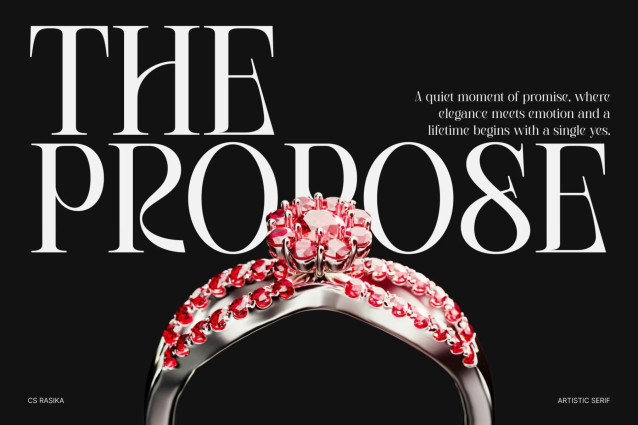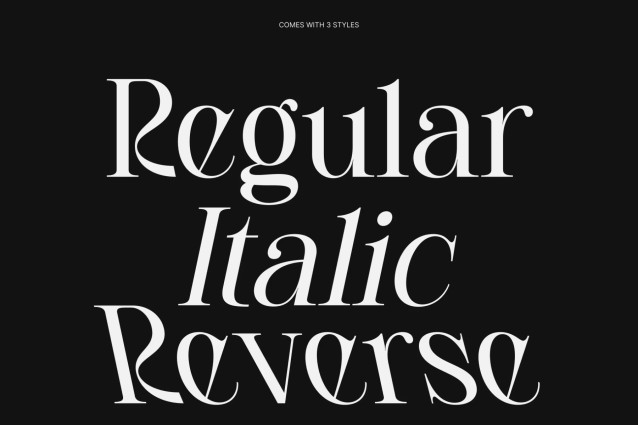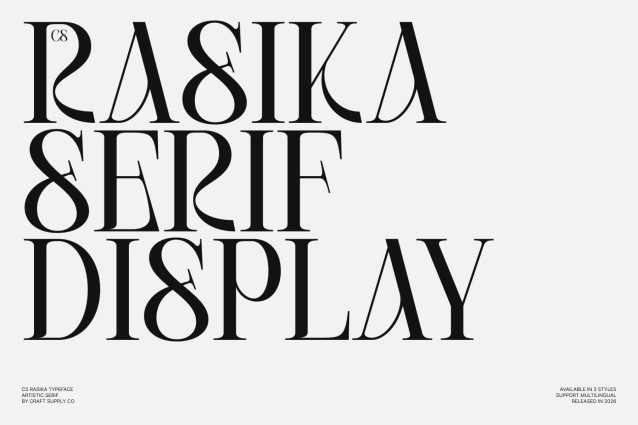
CS Rasika – Elegant Serif Font
CS Rasika – Elegant Serif with Timeless High-Contrast Beauty
Elegant Serif with Refined Curves
This is an elegant serif font designed to express sophistication through graceful curves and polished proportions. Every letterform feels carefully sculpted, creating a refined visual rhythm that immediately communicates luxury and professionalism. This typeface blends classic inspiration with modern precision, making it a powerful choice for designers seeking timeless elegance.
High Contrast for Artistic Expression
Built on a high-contrast structure, this font delivers dramatic thick-to-thin transitions that bring depth and personality to every word. This contrast enhances readability while adding a sense of artistry and movement, allowing headlines and editorial compositions to feel expressive and visually rich. The result is typography that feels both classic and strikingly contemporary.